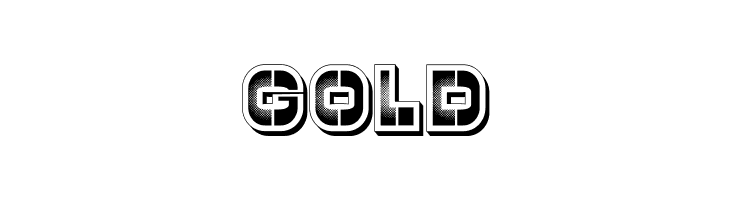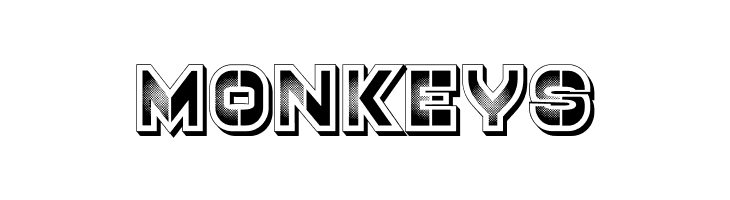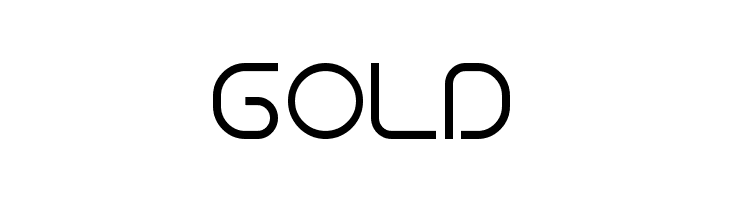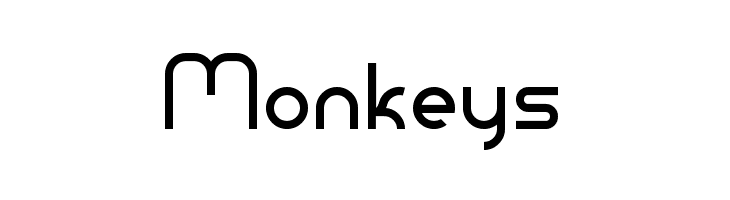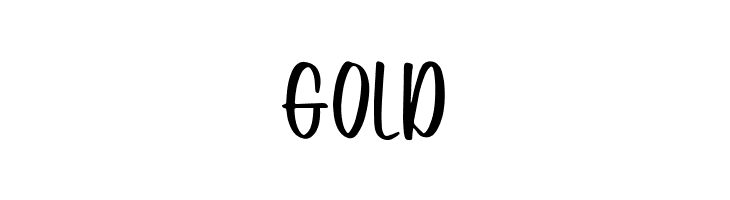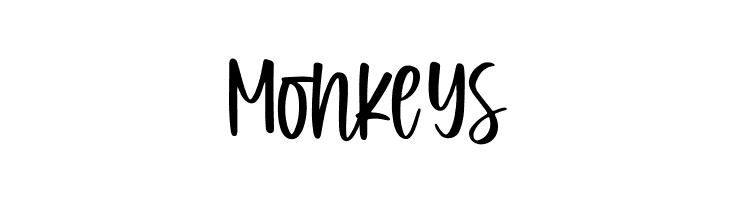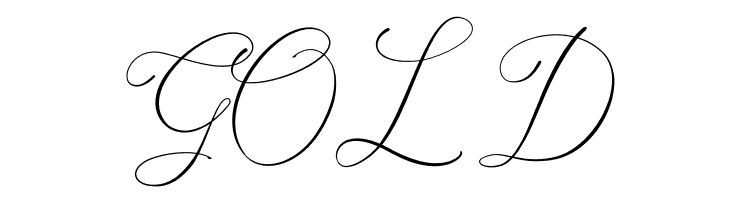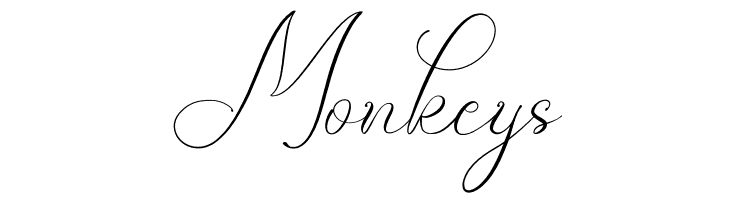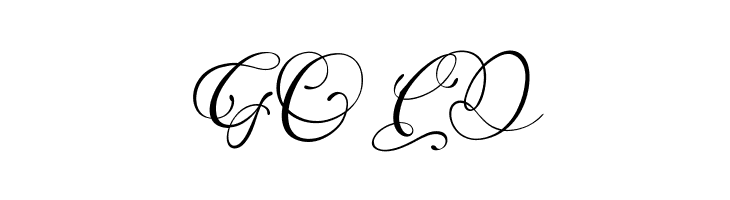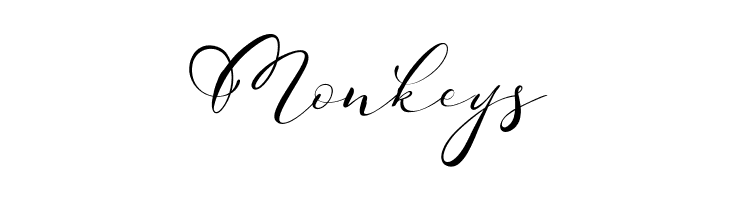
• Adolphus Serif
A modern serif font with elegant, elongated letterforms and sharp serifs.
• Adon Black
A bold, modern font with sharp serifs and high contrast, perfect for striking designs.
• Adonay
A modern, geometric font with clean lines and a futuristic aesthetic.
• Adonay
A modern, geometric font with clean lines and rounded edges.
• Adonessia Demo
An elegant, flowing script font with intricate loops and high contrast.
• Adonis-Bold
A bold, angular font with geometric shapes and a dynamic style.
• AdonisGreekSquares
A bold, geometric font with Greek-inspired, angular characters enclosed in squares.
• Adopted Regular
A bold, three-dimensional font with a gradient fill and sharp edges.
• Adora Chalie Regular
A bold, playful handwritten font with smooth curves and a dynamic slant.
• Adora Queen Personal Use
An elegant script font with high contrast and ornate flourishes.